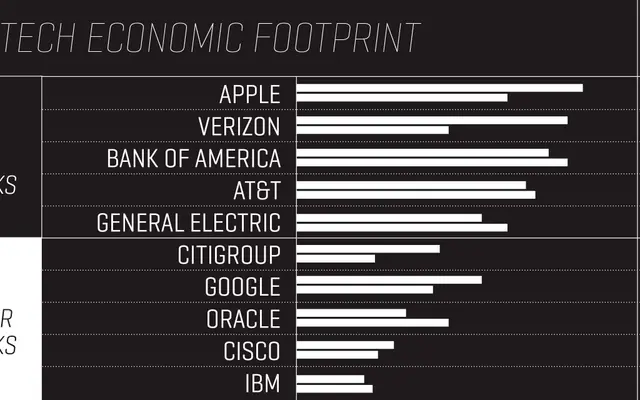
Geogrotesque CS
An extension of the Geogrotesque family adding three narrower width series, ranging from Condensed to Extra Compressed across seven weights each with matching italics.
A 42-font condensed system built as an addition to the original Geogrotesque, spanning Condensed, Compressed and Extra Compressed widths down to roughly 55% of the base width. Each width series runs through seven weights from Thin to Bold with italics throughout, giving designers a fluid range of narrow cuts for headline and text use in publications. The Latin Extended glyph set includes fractions, superscripts, subscripts and a full range of diacritics for broad European language support.
A condensed series extension of the Geogrotesque family, which is a geometric grotesque; the CS variants maintain that geometric-grotesque character across three compressed width axes.